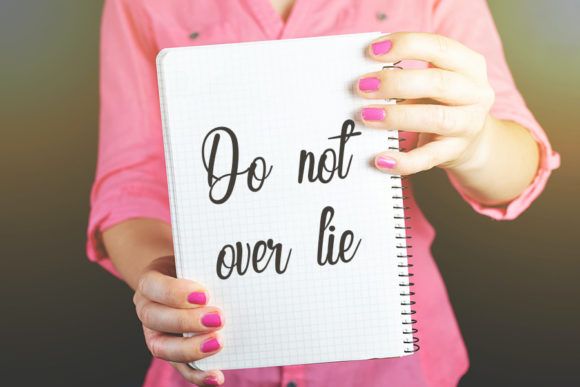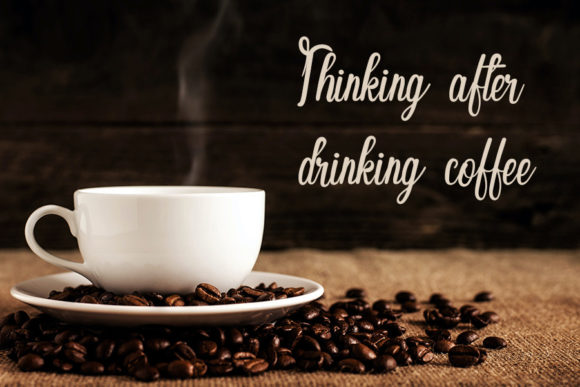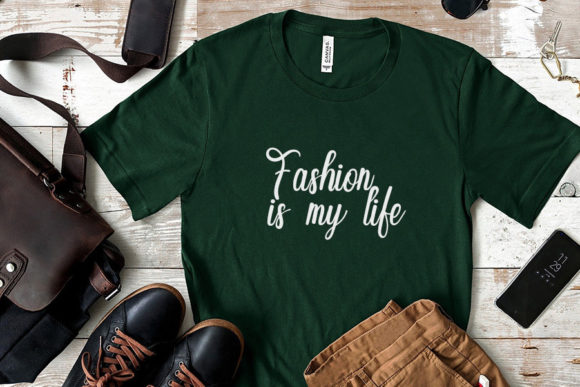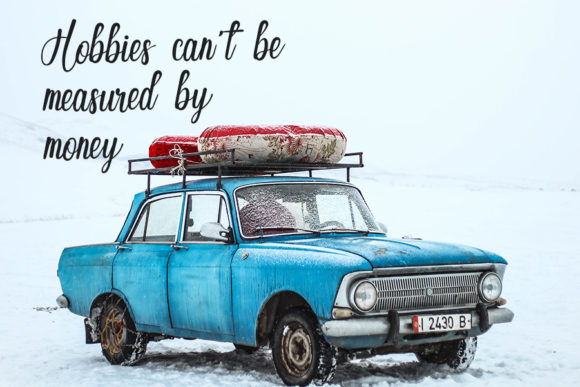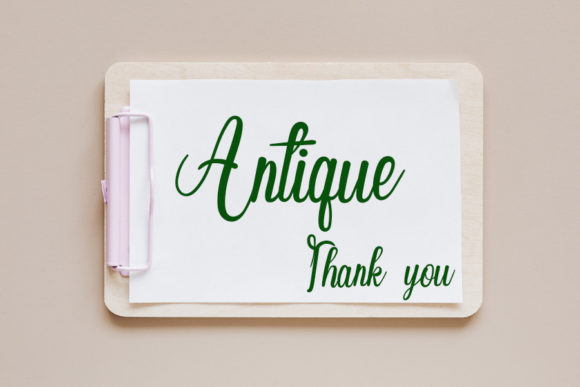
Discover the Timeless Charm of Antique Font: A Modern Take on Classic Calligraphy
In the world of typography, few fonts manage to strike a balance between classic elegance and modern flair. Antique Font, however, achieves this delicate balance with remarkable finesse. Inspired by the timeless beauty of classic calligraphy, Antique Font brings a fresh and contemporary vibe to the table, making it an ideal choice for designers and crafters looking to add a touch of sophistication to their projects.
The Inspiration Behind Antique Font
Antique Font draws its inspiration from the rich heritage of classic calligraphy, where the art of beautiful handwriting was elevated to new heights. The font’s creator aimed to capture the essence of this traditional craft while infusing it with a modern twist. The result is a font that exudes a sense of refinement and poise, perfect for projects that demand a high level of elegance.
Design Characteristics of Antique Font
So, what sets Antique Font apart from other fonts in its class? Here are a few key design characteristics that make it stand out:
- Balanced and Varied: Antique Font boasts a balanced and varied design, where no two characters are exactly alike. This subtle variation adds a level of sophistication and visual interest to your projects.
- Not Too Thin, Not Too Thick: The font’s stroke width is carefully calibrated to be neither too thin nor too thick. This optimal balance ensures that Antique Font remains legible and stylish, even at smaller font sizes.
- Modern Vibe: While Antique Font is rooted in classic calligraphy, its design is undeniably modern. The font’s clean lines, subtle curves, and optimized spacing make it perfect for contemporary design projects.
Use Cases for Antique Font
Antique Font’s versatility makes it suitable for a wide range of design projects, including:
- Branding and Logo Design: Add a touch of elegance to your brand identity with Antique Font. Its classic charm and modern vibe make it perfect for logos, business cards, and letterheads.
- Wedding and Event Stationery: Create beautiful wedding invitations, save-the-date cards, and event programs with Antique Font. Its sophisticated design ensures that your stationery stands out from the crowd.
- Packaging Design: Elevate your packaging design with Antique Font’s refined and polished aesthetic. Perfect for luxury brands, high-end products, and premium services.
- Digital and Print Media: Use Antique Font in digital and print media, such as magazines, brochures, and website headers, to add a level of sophistication and visual appeal.
Tips for Using Antique Font Effectively
To get the most out of Antique Font, here are a few tips to keep in mind:
- Pair with Neutral Backgrounds: Antique Font’s bold and elegant design works best with neutral backgrounds. Pair it with light-colored backgrounds to create visual contrast and make your text stand out.
- Experiment with Font Sizes: Antique Font’s balanced design ensures that it remains legible at various font sizes. Experiment with different font sizes to create visual hierarchy and add emphasis to your text.
- Use for Headings and Titles: Antique Font is perfect for headings and titles, where its elegant design can shine. Use it to create eye-catching headlines that draw attention and add visual interest.
Antique Font is a beautiful and versatile font that brings a touch of classic elegance to modern design projects. Its balanced and varied design, optimal stroke width, and modern vibe make it perfect for designers and crafters looking to add a level of sophistication to their work. Whether you’re creating branding materials, wedding stationery, or packaging design, Antique Font is sure to impress. So why not give it a try and discover the timeless charm of Antique Font for yourself?